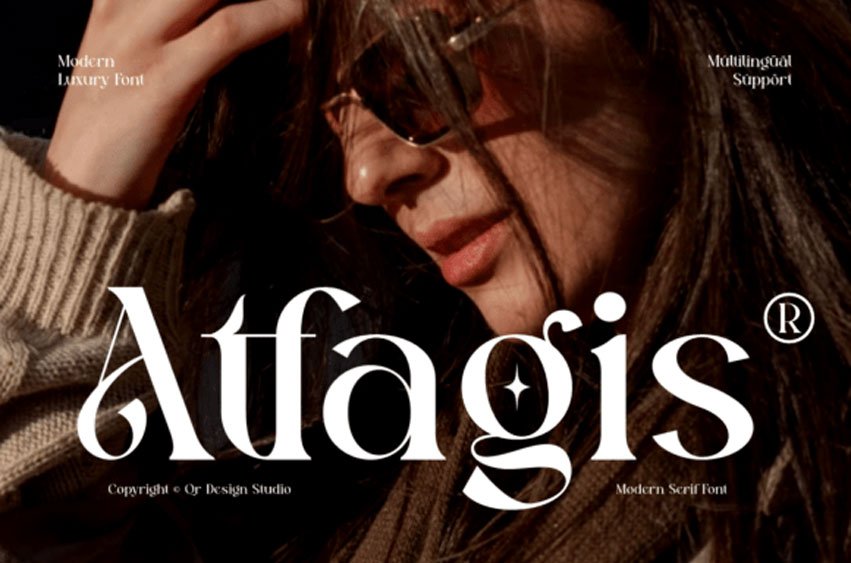
Atfagis Font Unlock a new tier of high-fashion allure with Atfagis, a modern luxury serif font. This regular display typeface commands immediate prestige, distorting traditional Roman proportions into a contemporary avant-garde masterpiece.
Meticulously optimized for global high-end design workflows, Atfagis provides comprehensive multilingual support. It acts as an instant shortcut to elite visual branding, cutting beautifully through rich photography or minimalist editorial canvas space. This premium font is the ultimate strategic centerpiece choice for upscale cosmetic logos, boutique jewelry packaging, haute couture runway banners, high-end real estate lookbooks, and prominent fashion magazine covers.